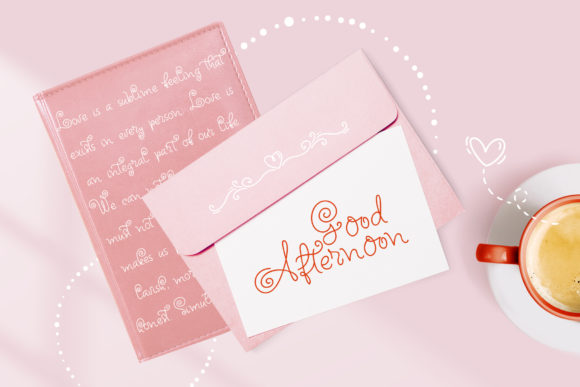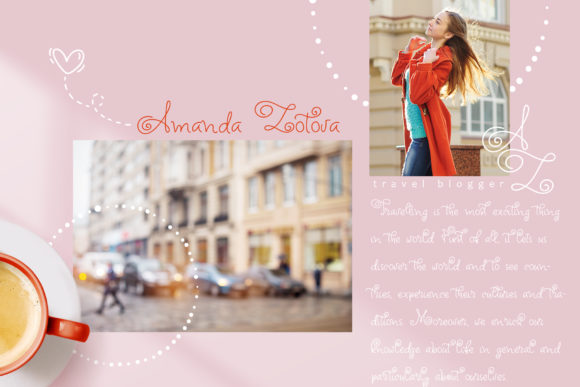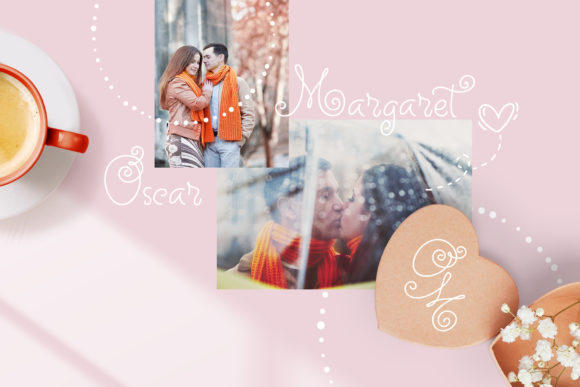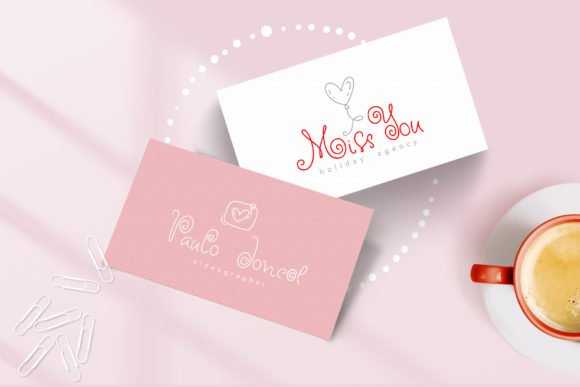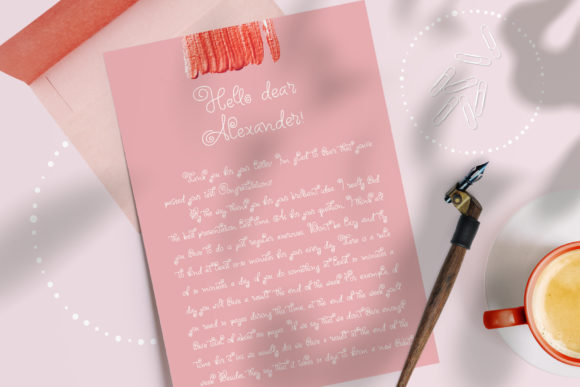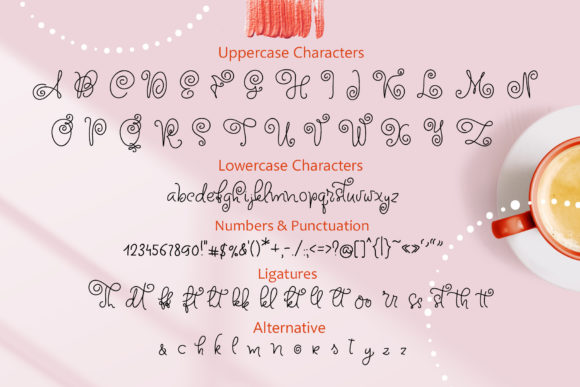
Circle Around Font
About Circle Around Font
Circle Around is a lovely handwritten font with beautifully rounded swashes. Get inspired by its contemporary grace!